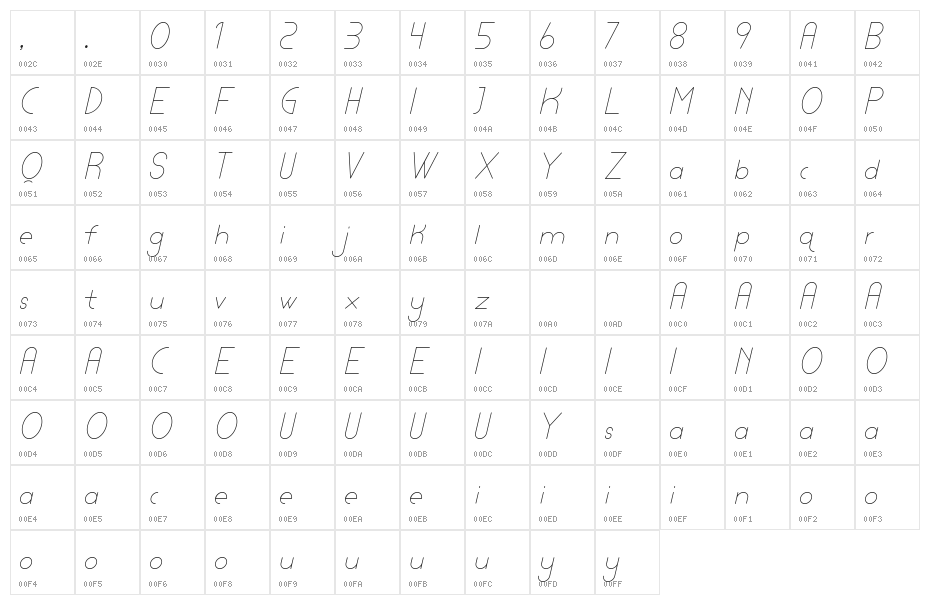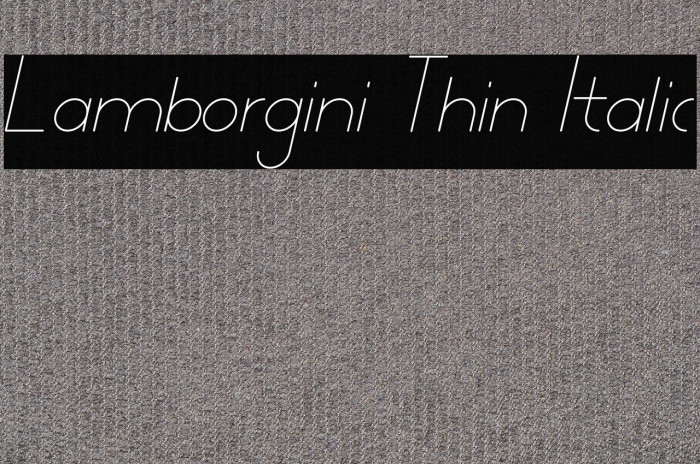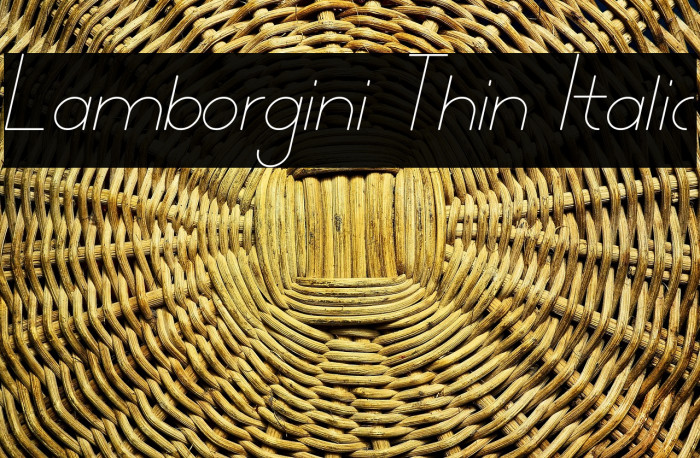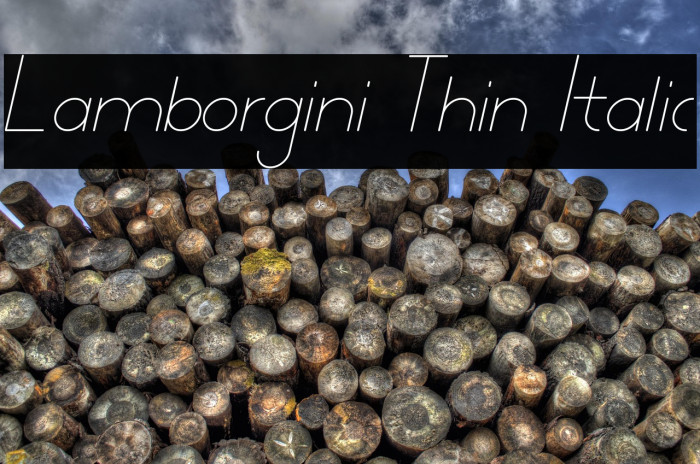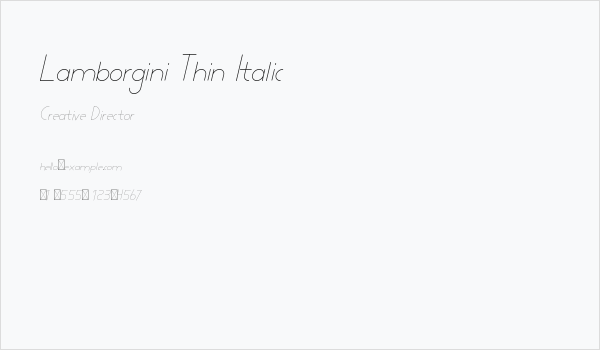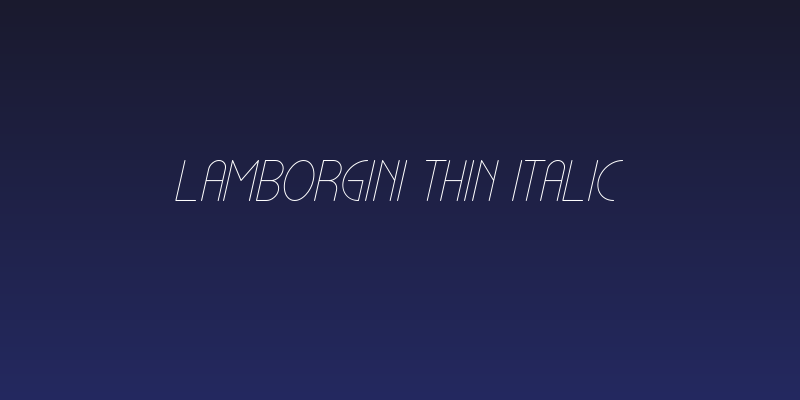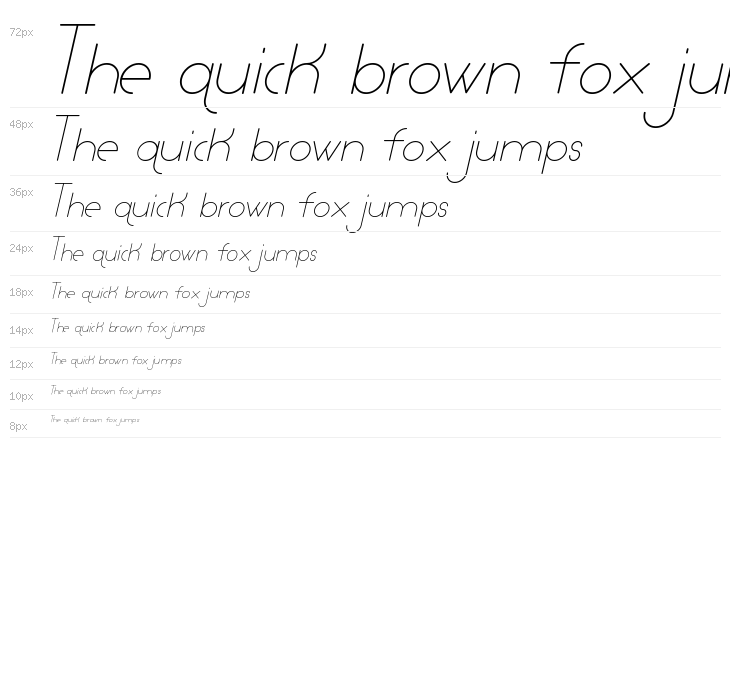
Lamborgini Thin Italic Font
Lamborgini Thin Italic Description
This font exhibits a sleek and modern design with thin, elongated letterforms that convey a sense of elegance and sophistication. The italic style adds a dynamic and forward-leaning appearance, enhancing its contemporary aesthetic. Each character is crafted with precision, featuring smooth curves and minimalistic lines that create a clean and airy look. The uppercase and lowercase letters maintain a consistent style, while the numerals and special characters blend seamlessly into the overall design. This font's refined and stylish nature makes it suitable for projects that require a touch of modernity and class.
| Proposed Projects | Ideal for luxury branding, fashion magazines, modern websites, and elegant invitations. |